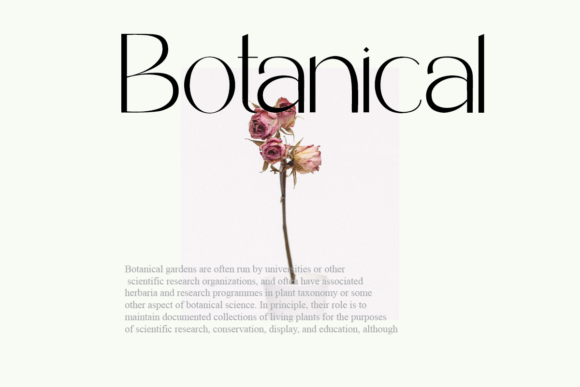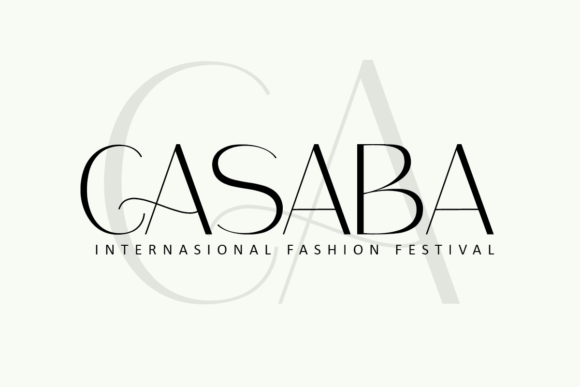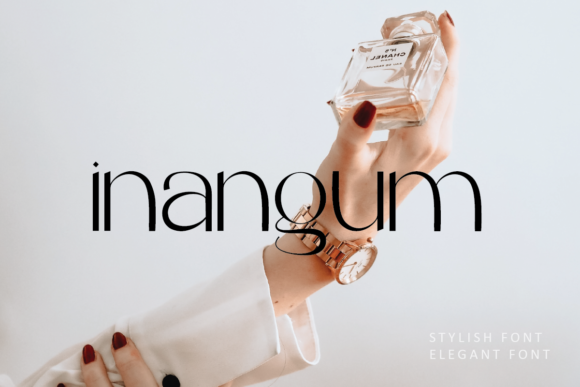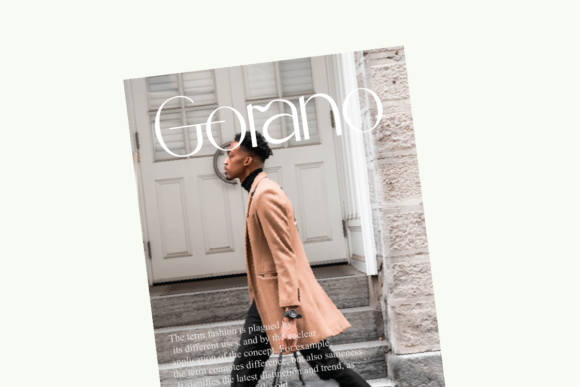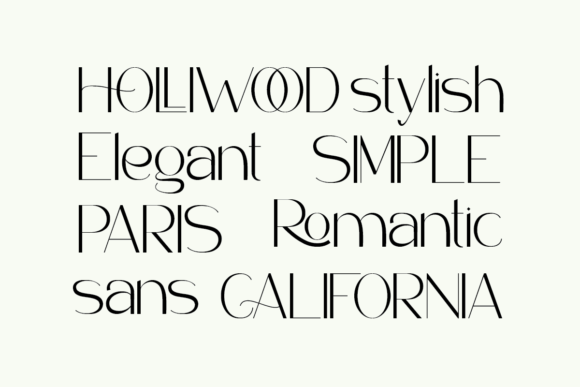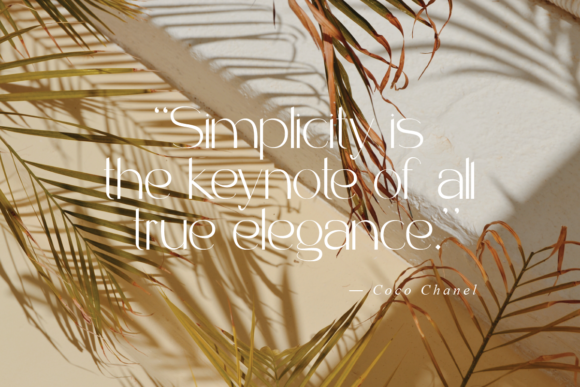
Earga Font: Elevate Your Crafting Ideas with Clean Elegance
In the world of design and crafting, the right font can make all the difference. A well-chosen font can elevate your project, convey your message, and leave a lasting impression on your audience. If you’re a designer, crafter, or DIY enthusiast looking for a versatile and elegant sans serif font, look no further than Earga Font. In this article, we’ll explore the features and benefits of Earga Font, and how it can enhance your crafting ideas.
What is Earga Font?
Earga Font is a clean and elegant sans serif font designed to meet the needs of modern designers and crafters. Its sleek lines, balanced proportions, and minimalist aesthetic make it perfect for a wide range of applications, from cards and branding to labels and more. Whether you’re creating a handmade card, a logo, or a label, Earga Font is the perfect choice.
One of the standout features of Earga Font is its PUA (Private Use Area) encoding. This means that you can access all of the glyphs and swashes with ease, giving you maximum flexibility and creative control. With Earga Font, you can easily insert special characters, ligatures, and swashes into your designs, taking them to the next level.
Key Features of Earga Font
- Clean and elegant sans serif design: Perfect for modern designs and crafting ideas.
- PUA encoded: Easy access to glyphs and swashes for maximum creative control.
- Versatile: Suitable for a wide range of applications, including cards, branding, labels, and more.
- Elegant and sophisticated: Adds a touch of class and sophistication to your designs.
Earga Font offers numerous benefits for designers and crafters. Its clean and elegant design makes it perfect for creating professional-looking designs, while its PUA encoding gives you the flexibility to experiment with different glyphs and swashes. With Earga Font, you can:
- Elevate your designs: Add a touch of elegance and sophistication to your projects.
- Save time: Easy access to glyphs and swashes means you can work more efficiently.
- Increase creativity: With a wide range of design possibilities, Earga Font inspires creativity and experimentation.
Use Cases for Earga Font
Earga Font is perfect for a wide range of applications, including:
- Cards and invitations: Create beautiful, professional-looking cards and invitations for special occasions.
- Branding and logos: Use Earga Font to create elegant and sophisticated logos and branding materials.
- Labels and packaging: Add a touch of class to your labels and packaging with Earga Font.
- DIY projects: Use Earga Font to add a professional touch to your DIY projects, such as crafts, scrapbooking, and more.
In conclusion, Earga Font is a versatile and elegant sans serif font that’s perfect for designers, crafters, and DIY enthusiasts. Its clean design, PUA encoding, and wide range of applications make it an excellent choice for anyone looking to elevate their crafting ideas. Whether you’re creating cards, branding materials, labels, or DIY projects, Earga Font is the perfect choice. So why wait? Download Earga Font today and take your designs to the next level!